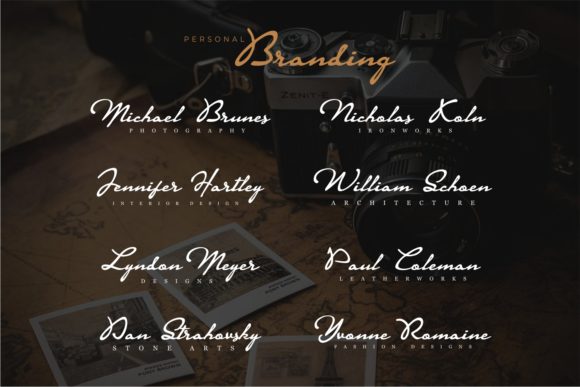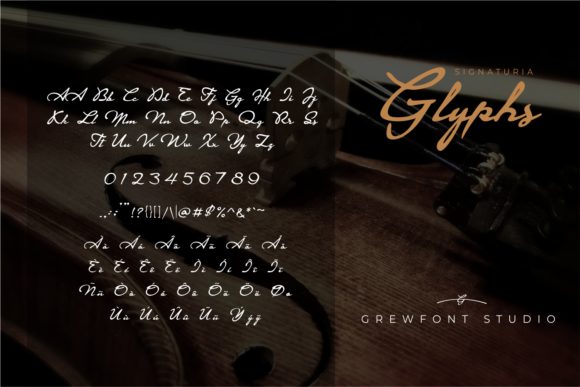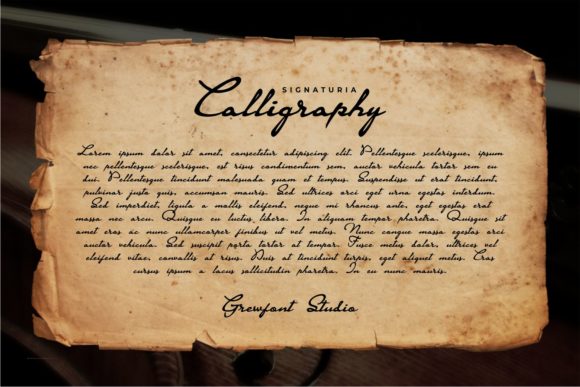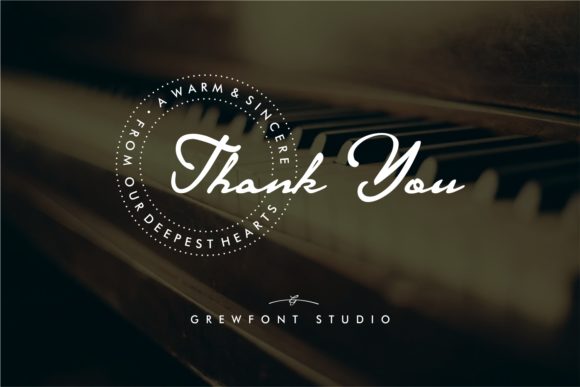
Introduction to Signaturia Font
Remember that moment when you stumbled upon the perfect font for your creative project? The one that makes your design pop and leaves a lasting impression on your audience? For designers, finding the right font can be a game-changer, elevating a simple design into a stunning piece of art.
Enter Signaturia Font, a beautiful and classy script font that’s sure to capture the essence of your high-quality design. With its varying baseline, smooth lines, and gorgeous glyphs, this stunning font is a stylish homage to classic calligraphy. Whether you’re looking for fonts for Instagram or calligraphy scripts for DIY projects, Signaturia Font will turn any creative idea into a true masterpiece.
Key Features of Signaturia Font
- High-quality, unique font design ideal for creative projects, including logos, branding, and advertising materials.
- Supports a wide range of languages, making it a versatile font for international design projects.
- Includes a range of glyphs, including Latin, Cyrillic, and Greek characters, as well as punctuation and special symbols.
Honest Review: Signaturia Font
I recently stumbled upon the Signaturia Font, and I must say it’s been a game-changer for my creative projects. This font is a high-quality design resource that has genuinely elevated my work.
- ✨ The Signaturia Font has a clean and elegant design that’s perfect for a variety of creative projects, from brochures to websites.
However, I do have a few minor gripes with the Signaturia Font. ⚠️ Firstly, the font selection is limited to a single style, which might not be ideal for designers who require a wide range of options.
Overall, I’m thoroughly impressed with the Signaturia Font. It’s a fantastic design resource that’s both free and high-quality. The transparent background option and elegant design make it a must-have for any creative project. While it may have its limitations, the Signaturia Font is definitely worth considering for your next design project.
To get the most out of the Signaturia Font, experiment with different font sizes, colors, and alignments to find the perfect combination for your design. You can also pair the font with other design elements, such as images and graphics, to create a visually appealing design.
The Signaturia Font is perfect for designing logos, business cards, and other marketing materials. It’s also great for creating presentations, documents, and social media graphics. The font’s high quality and transparent background make it a popular design resource for creative professionals and entrepreneurs.